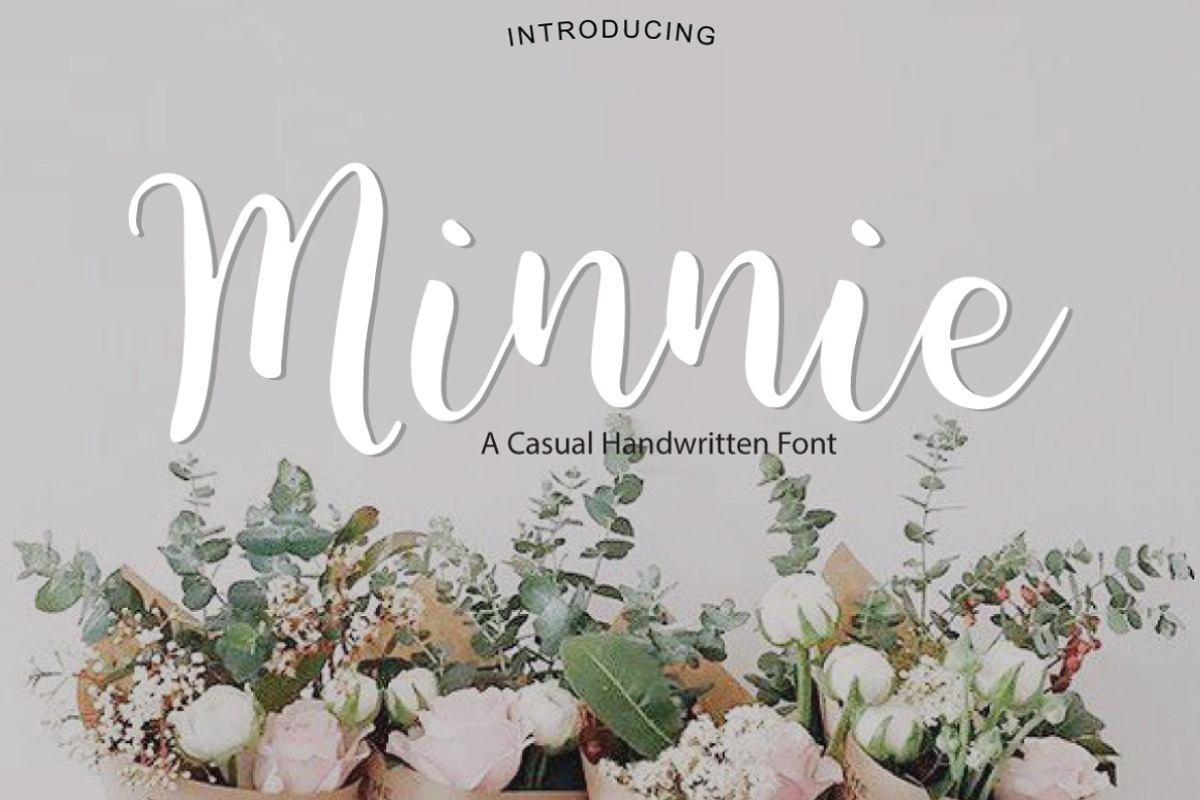
Minnie | Script Font Free Download is a charming and elegant handwritten script typeface that features smooth, flowing strokes and a stylish flair. With its natural, handwritten feel, this font is perfect for creating elegant invitations, branding, greeting cards, and personal projects. Its graceful curves and delicate letterforms bring warmth and personality to your typography.
Using the Minnie | Script Font Free Download adds a refined, personal touch to your designs. Whether you're designing a wedding invitation, crafting a sophisticated logo, or working on social media graphics, this font helps convey elegance and creativity with its flowing, cursive style.